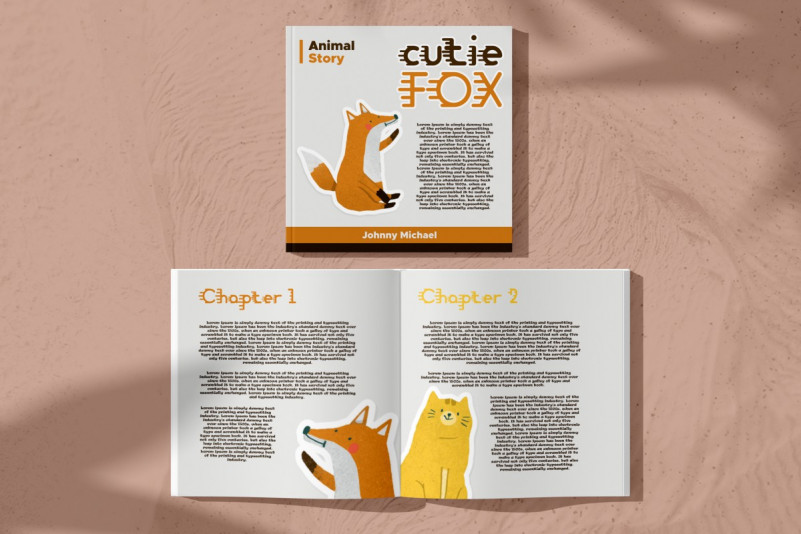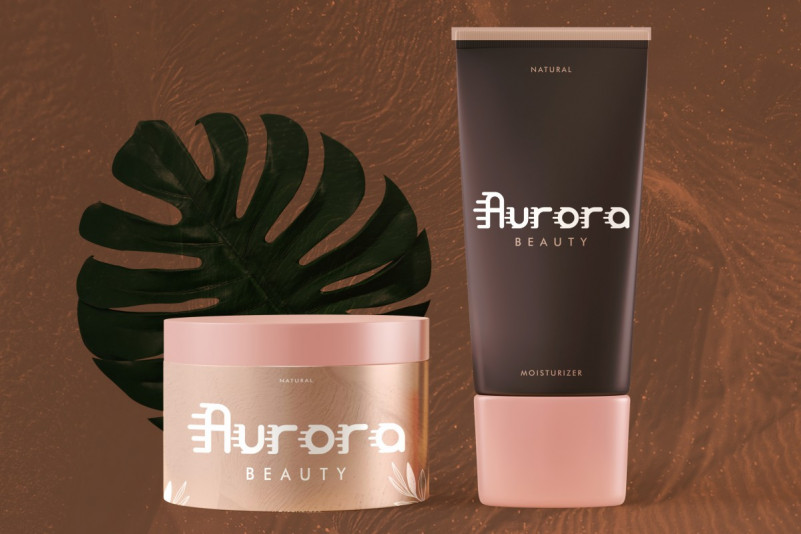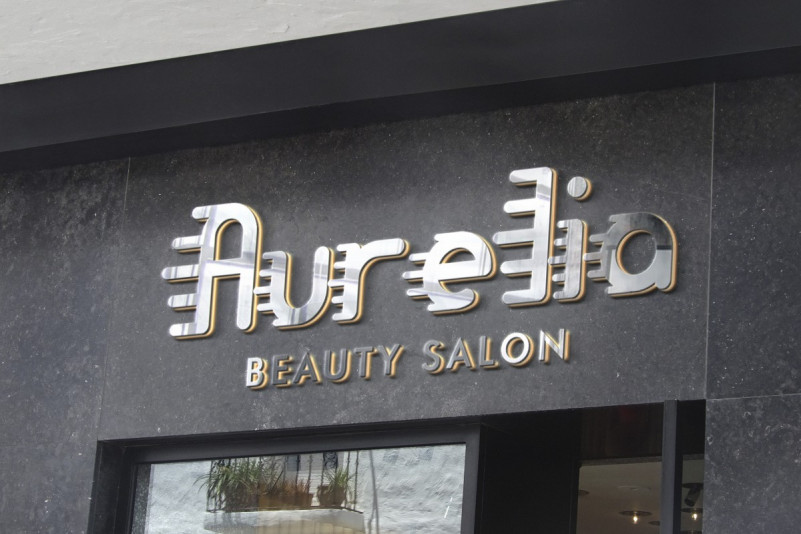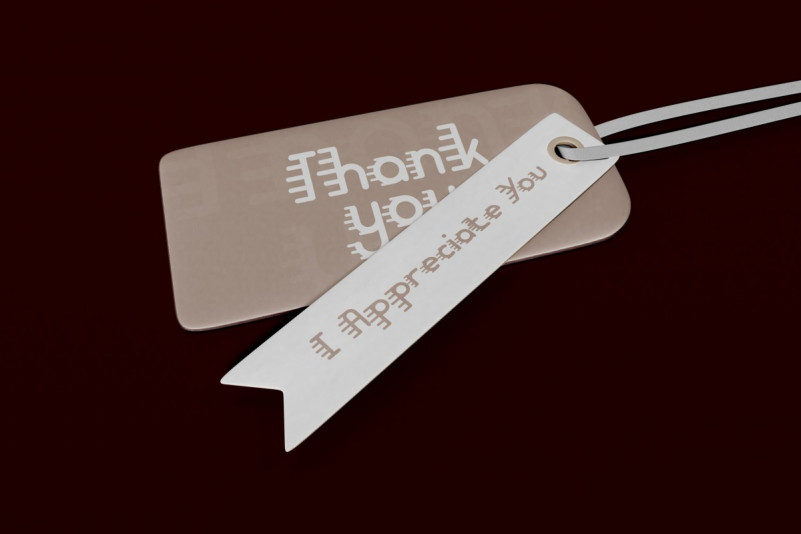
Hair Comb Font
Hair Comb Display Font
This is a display font with unique style inspired from a Fire and COMB. The font was also inspired by techno and hip poster. It has a unique style that will bring the special effect to the design. It will works for games, technology, events, spaceship and any other things.
Hair Comb Display Font includes full set of Uppercase and Lowercase Basic Characters, Numerals and Punctuation. You can also combine two or more styles on the text like we did on the cover, so you will great even more unique and special font. The font is perfect for many projects, headlines, logos, poster, tittle, products, etc